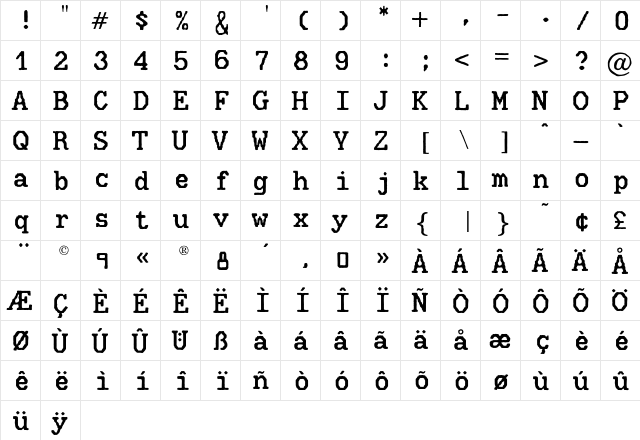
Mainframe-CN Trois Six Regular
Design Context for Mainframe-CN Trois Six Typeface
Mainframe-CN Trois Six is a composed and adaptable typeface that performs quietly and consistently across a wide range of design contexts.